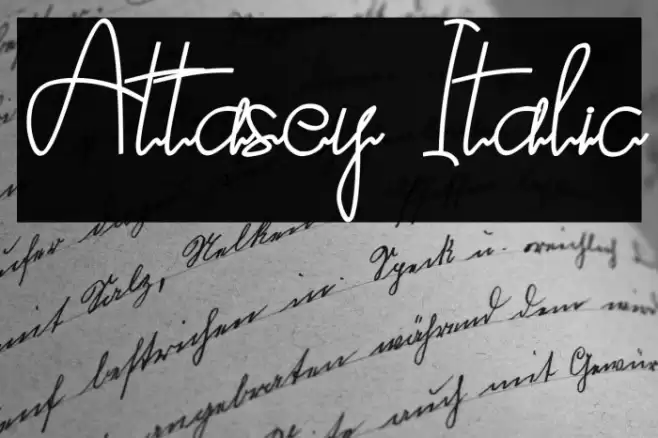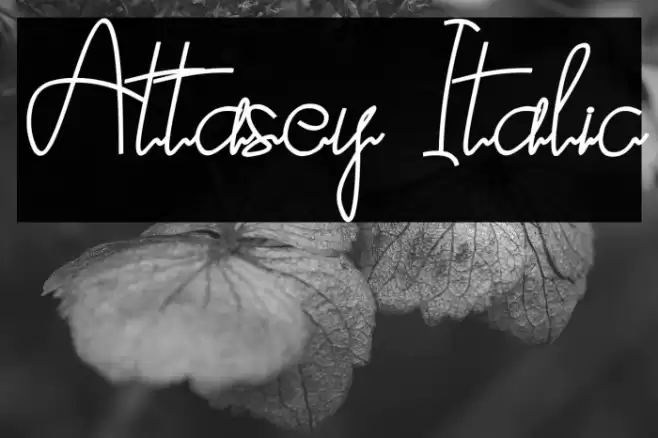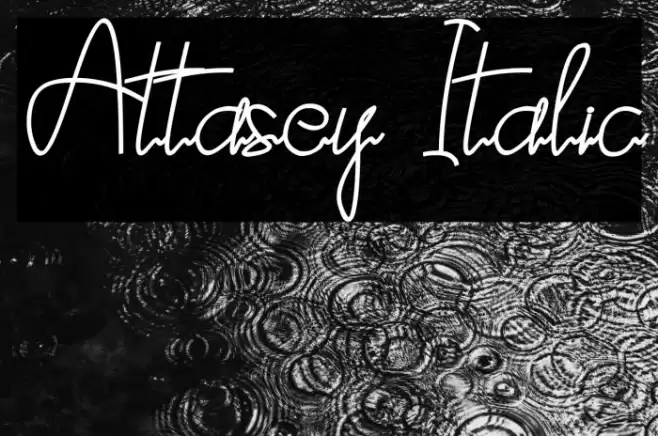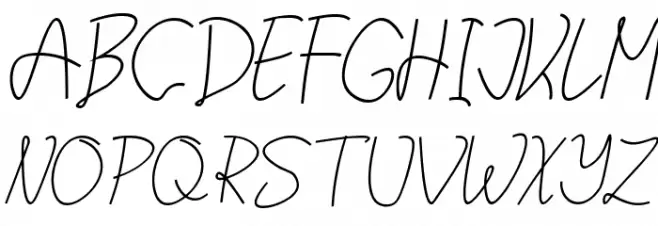
Attasey Italic Font
Attasey Italic Description
This font features a flowing, cursive style that exudes elegance and sophistication. The uppercase letters are tall and slender, with graceful curves and a slight slant that adds a dynamic feel. The lowercase letters are more compact, maintaining the same fluidity and connected strokes, which give the text a handwritten appearance. The overall design is clean and legible, making it suitable for both formal and creative applications. The font's italic nature enhances its stylish and modern appeal, making it a versatile choice for various design projects.
A flowing, cursive italic font with elegant, connected strokes from Uncategorized fonts.
- Proposed Projects: Ideal for wedding invitations, greeting cards, elegant branding, and personal stationery.
- Use Case: Logos, Invitations, Personal stationery